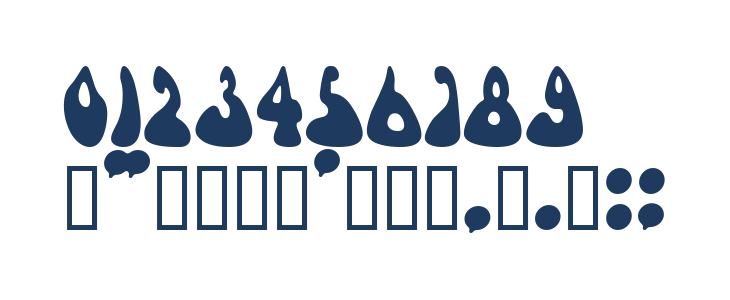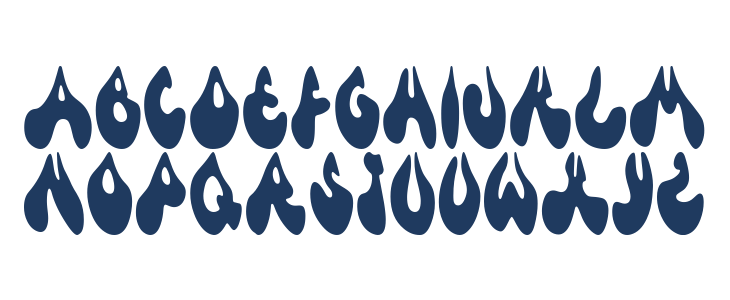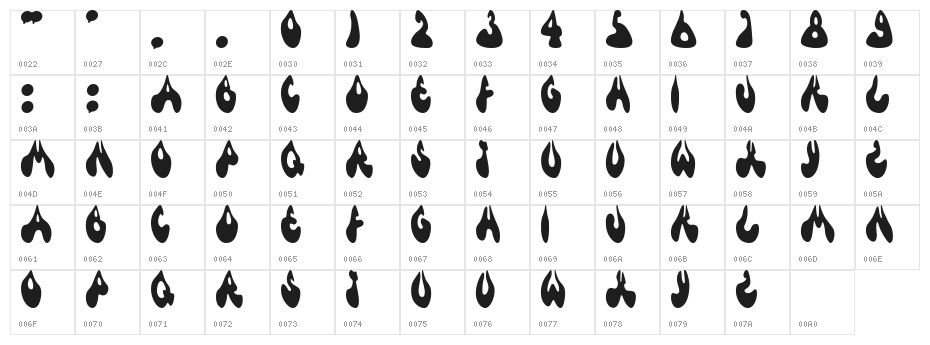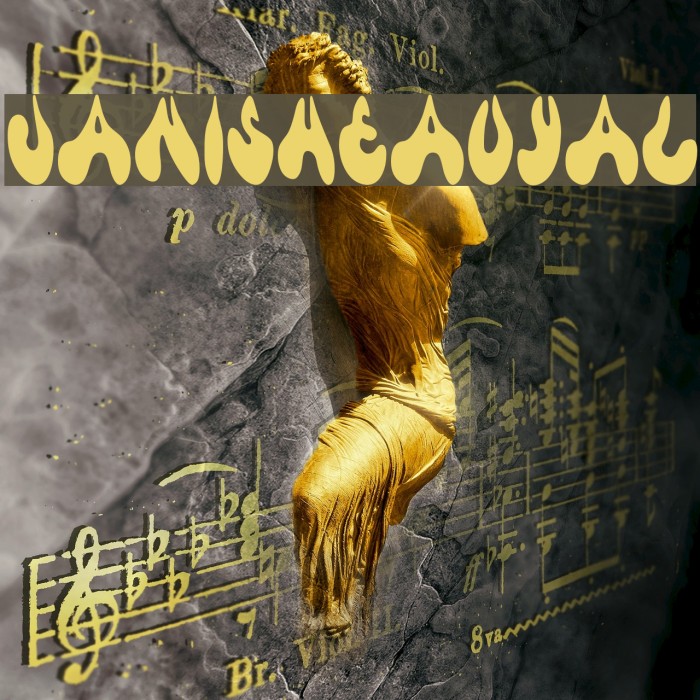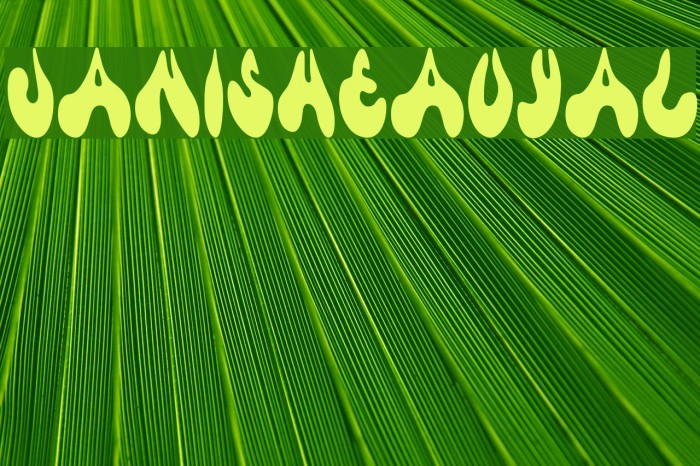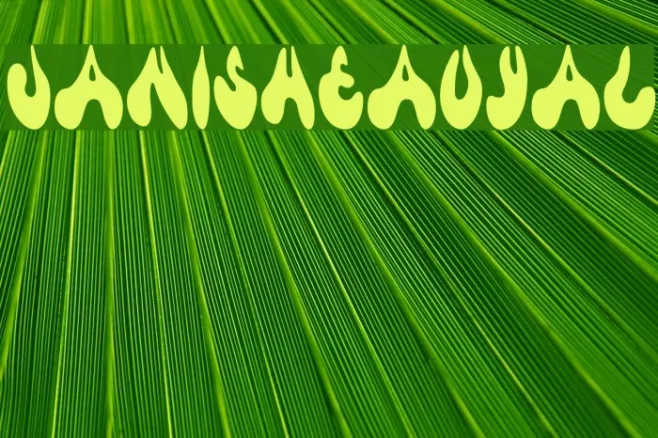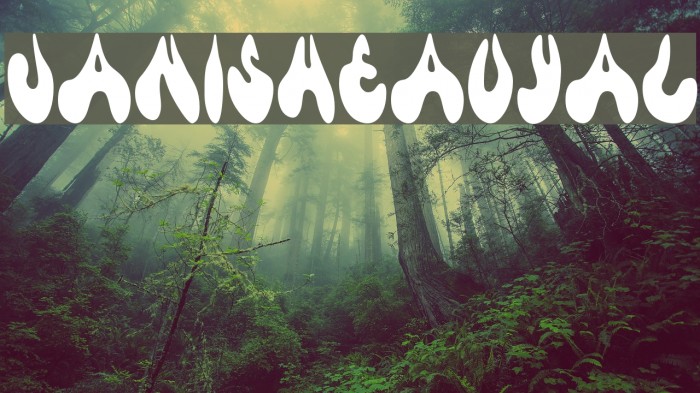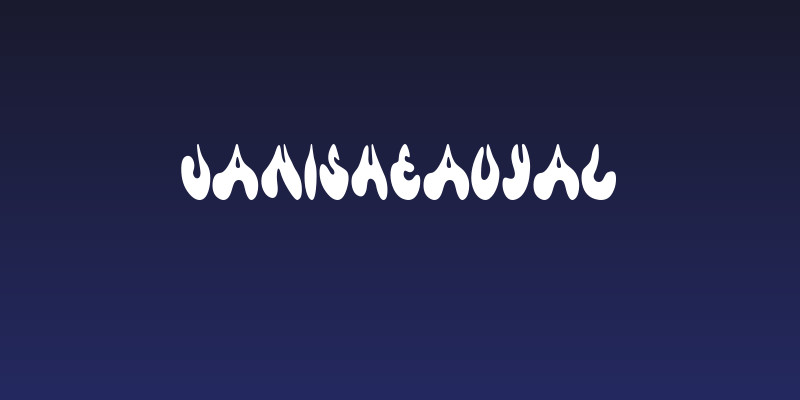
JanisHeavyAl Font
JanisHeavyAl Description
This font features a bold, organic design with thick, rounded shapes that create a playful and artistic appearance. The characters are highly stylized, with exaggerated curves and a fluid form that suggests movement and creativity. The uppercase and lowercase letters share a consistent style, maintaining the same whimsical and bold characteristics. Numbers and special characters follow the same design principles, ensuring uniformity across all glyphs. This font's unique style makes it stand out, offering a distinctive look that is both eye-catching and memorable.
| Proposed Projects | Ideal for artistic projects, children's books, playful branding, and creative posters. |